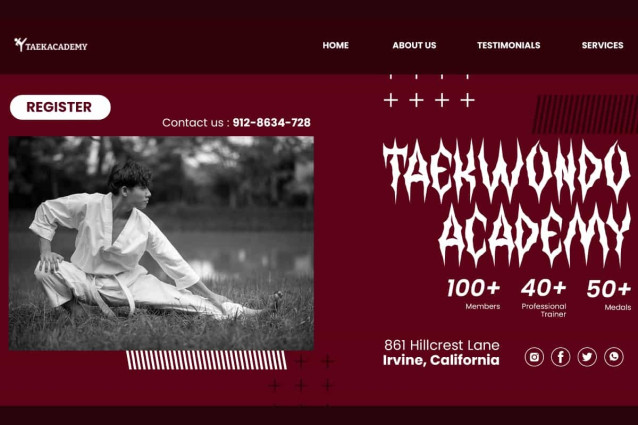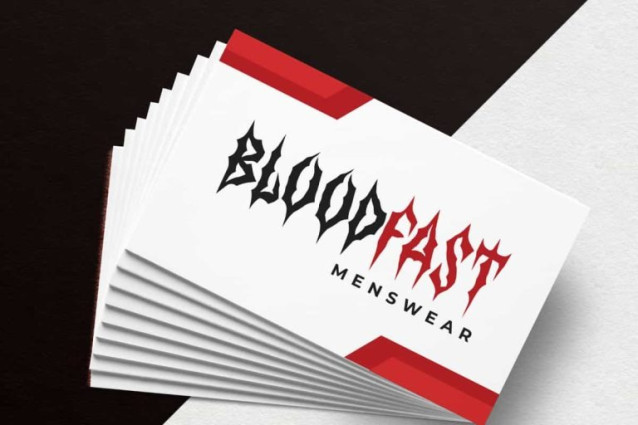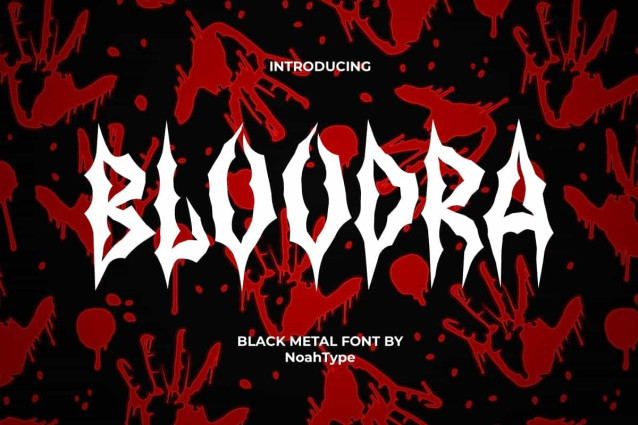
Bloodra Font
Bloodra Font is an underground, heavy, malignant and horror black metal font by NoahType. This font can give a scary look to the design and is easy to read to make it stand out. It will be perfect for any designs, such as cover, poster, custom design, signage, brand image, invitation, stationery, label, marketing material, menu, printing, product packaging, quotes, website, and many more!
Bloodra Font includes full set of ALL CAPS for Uppercase and Lowercase Basic Characters, Numerals, Punctuation, and Symbol. This font will make your design awesome and also a perfect choice for many industries, such as fashion, game, movie, event or festival, barber shop, accessories, advertising, art, café, printing, publishing, etc.